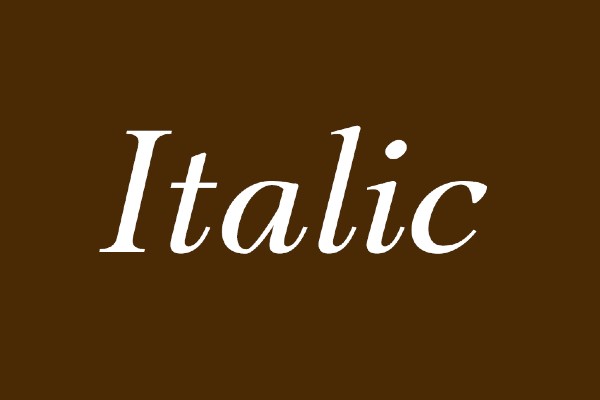
Now you can add a touch of elegance to your text with our italic font generator tool! Infuse your designs with a sense of sophistication as you effortlessly generate sleek and slanted fonts for a stylish twist. Whether you're crafting refined invitations, giving your brand logo a hint of flair, or simply elevating your typography game, our italic lettering tool is your go-to solution. Create a visual rhythm with these typographic elements that captivates with italicized quotes, headers, or any text element that deserves a dash of finesse. Select your own custom inputs, hit the generate button, and then download your customized italic font image and let your words lean into a world of chic design possibilities! Our lettering tool is free to use and enjoy, so why not jump in below and get started using it.